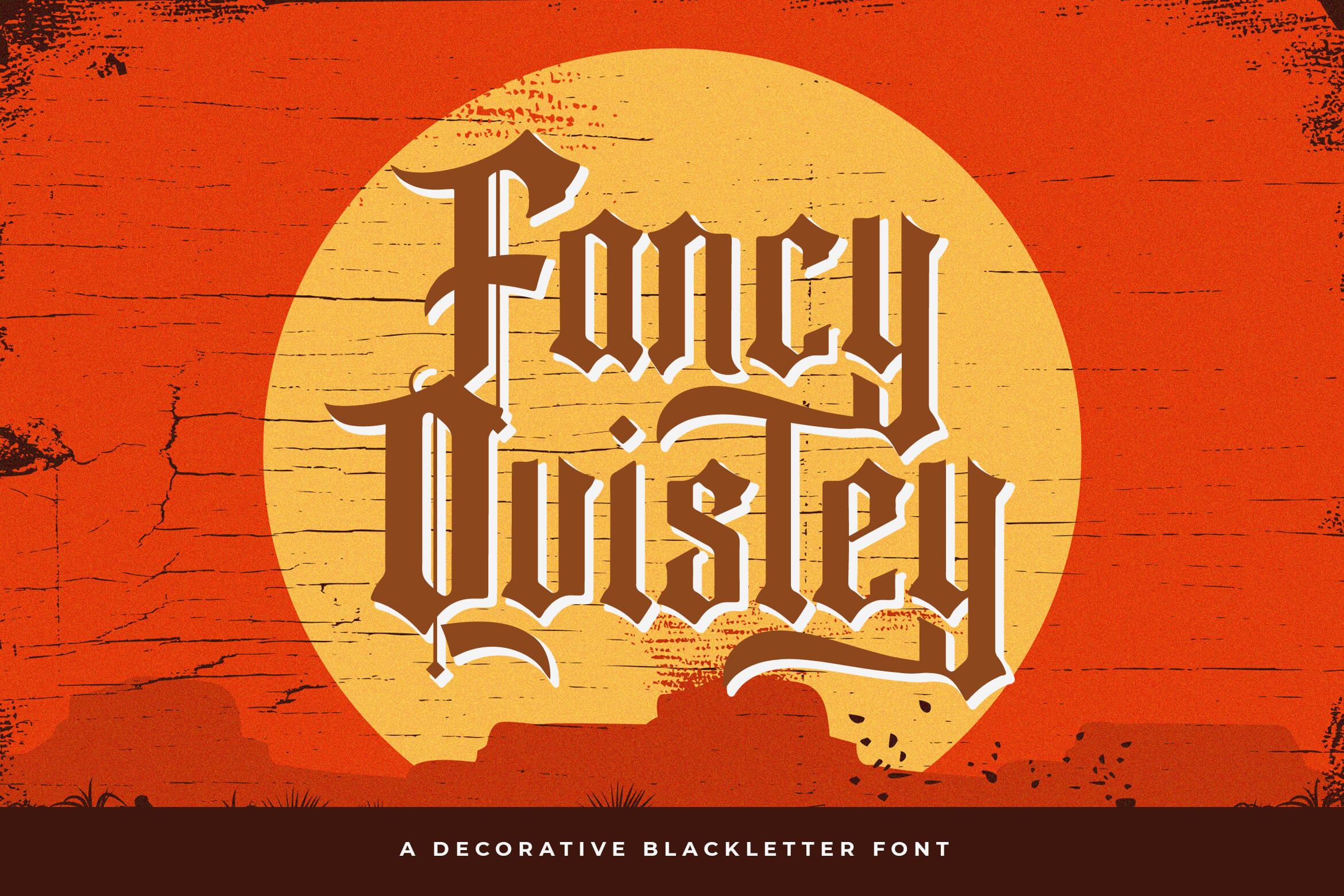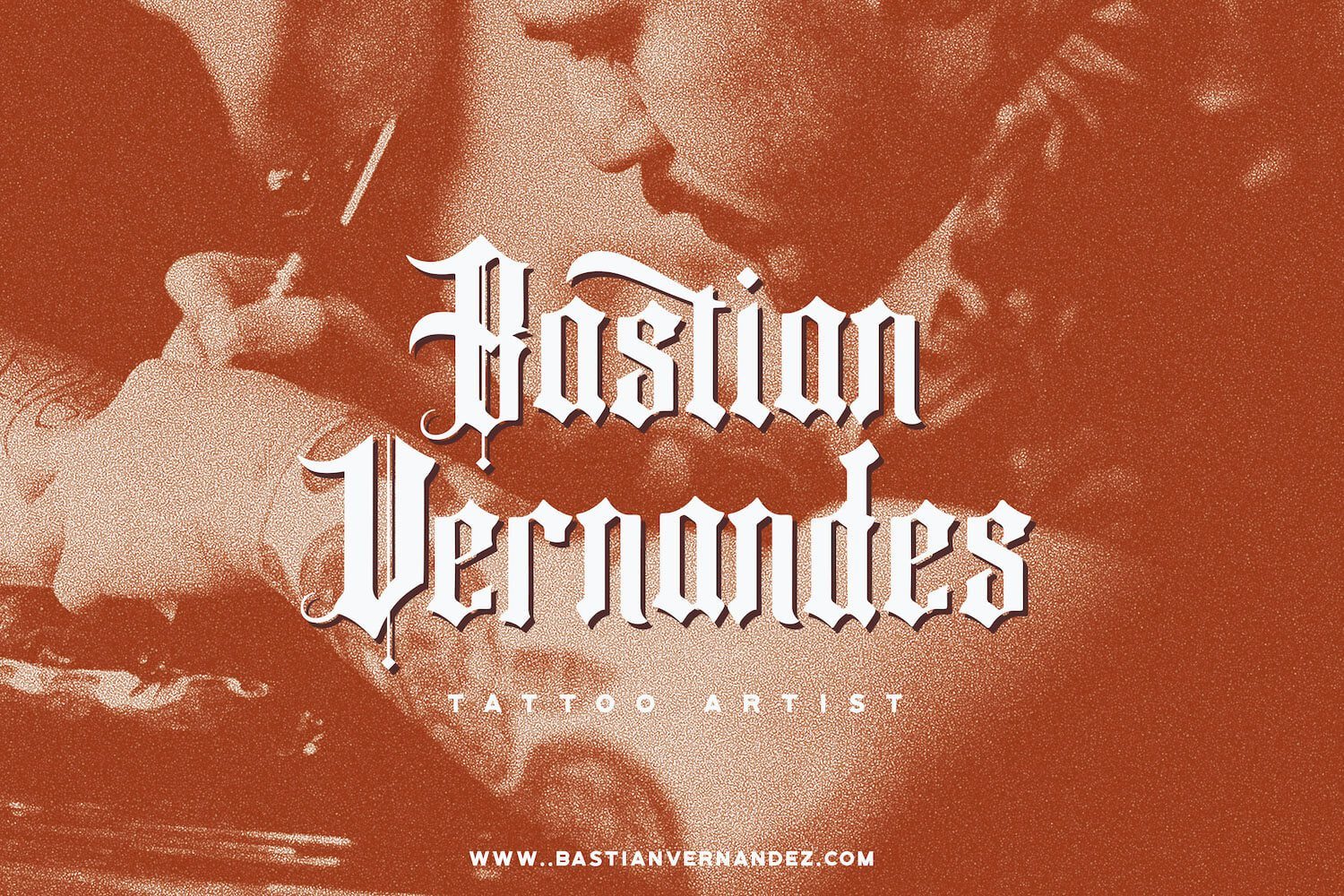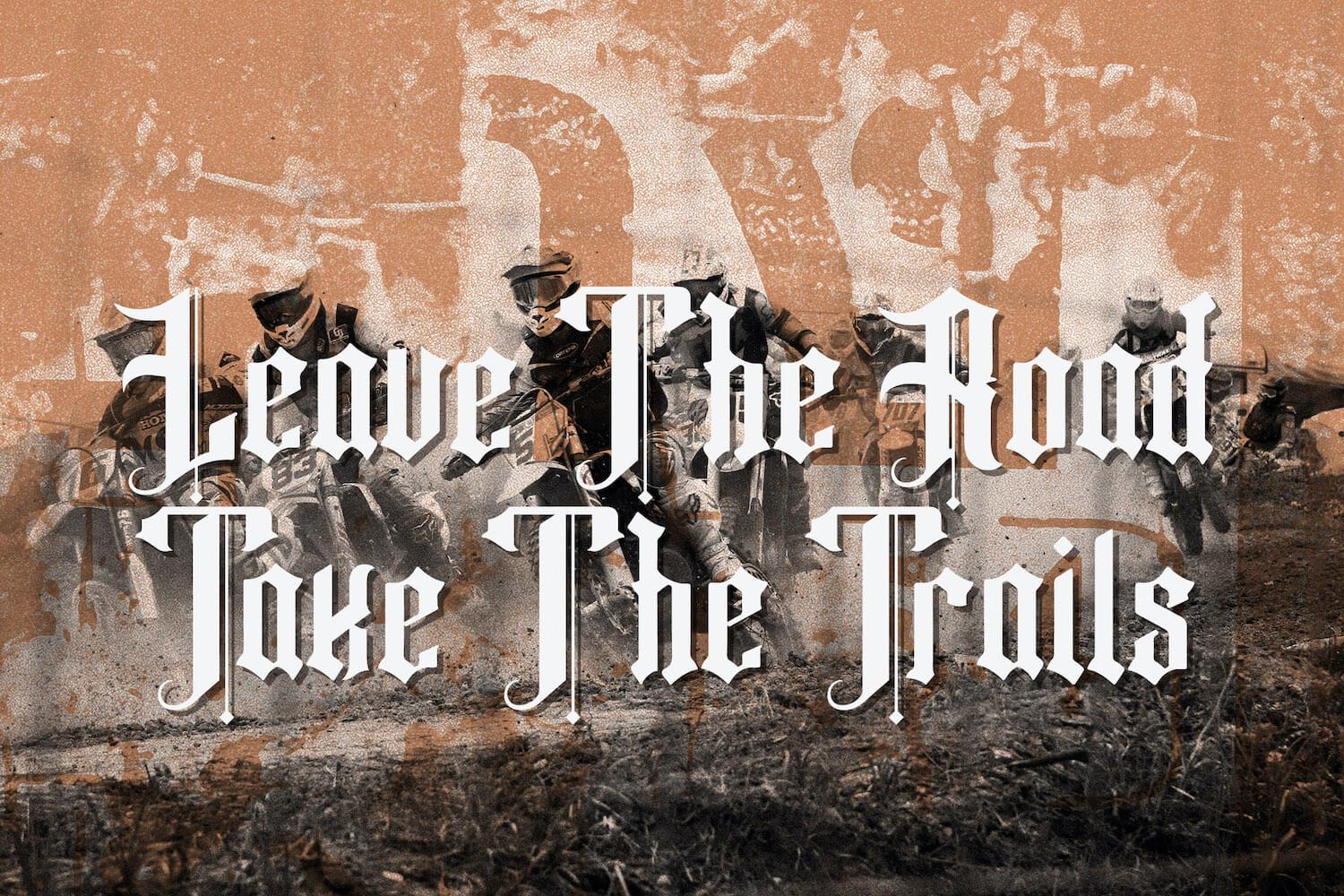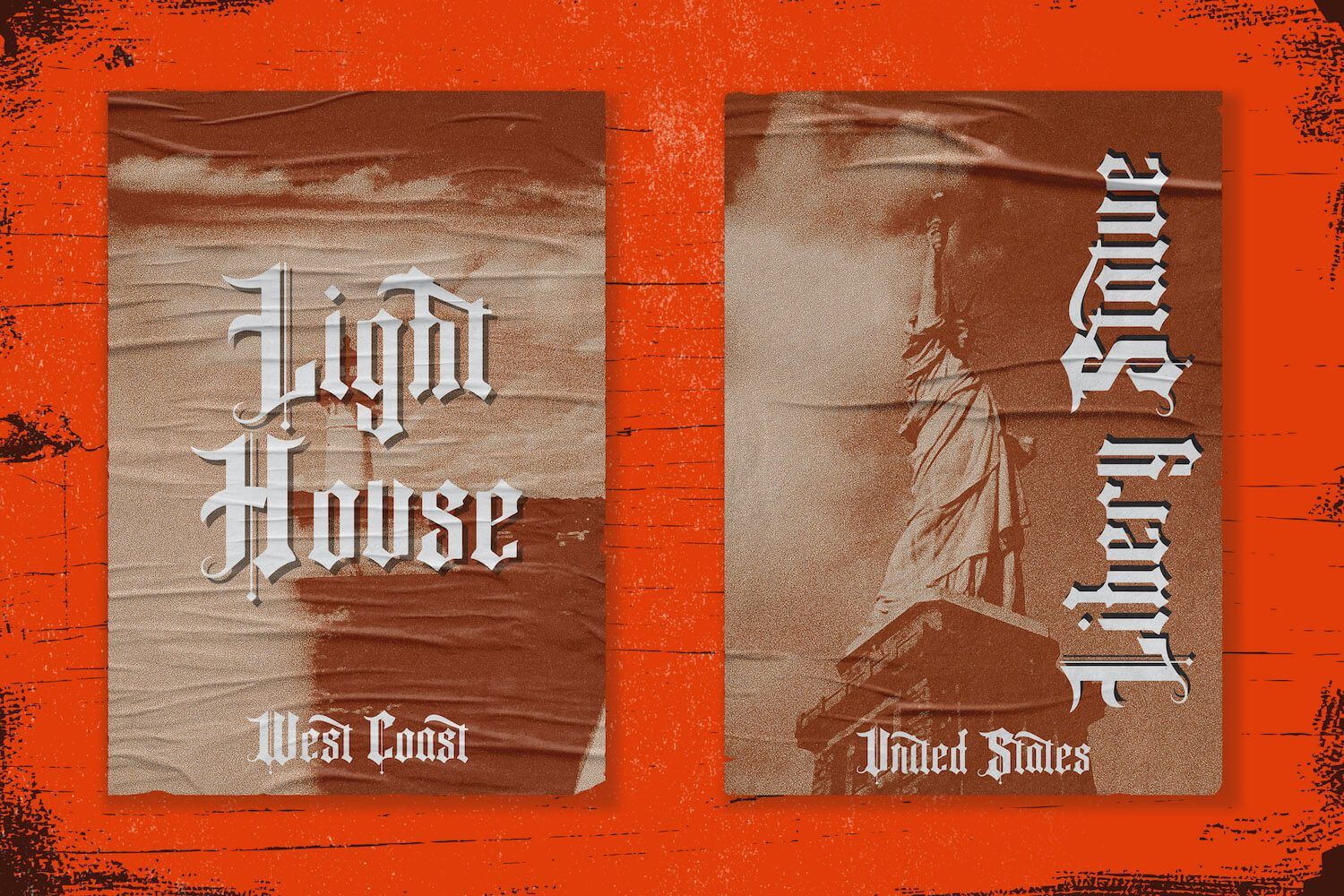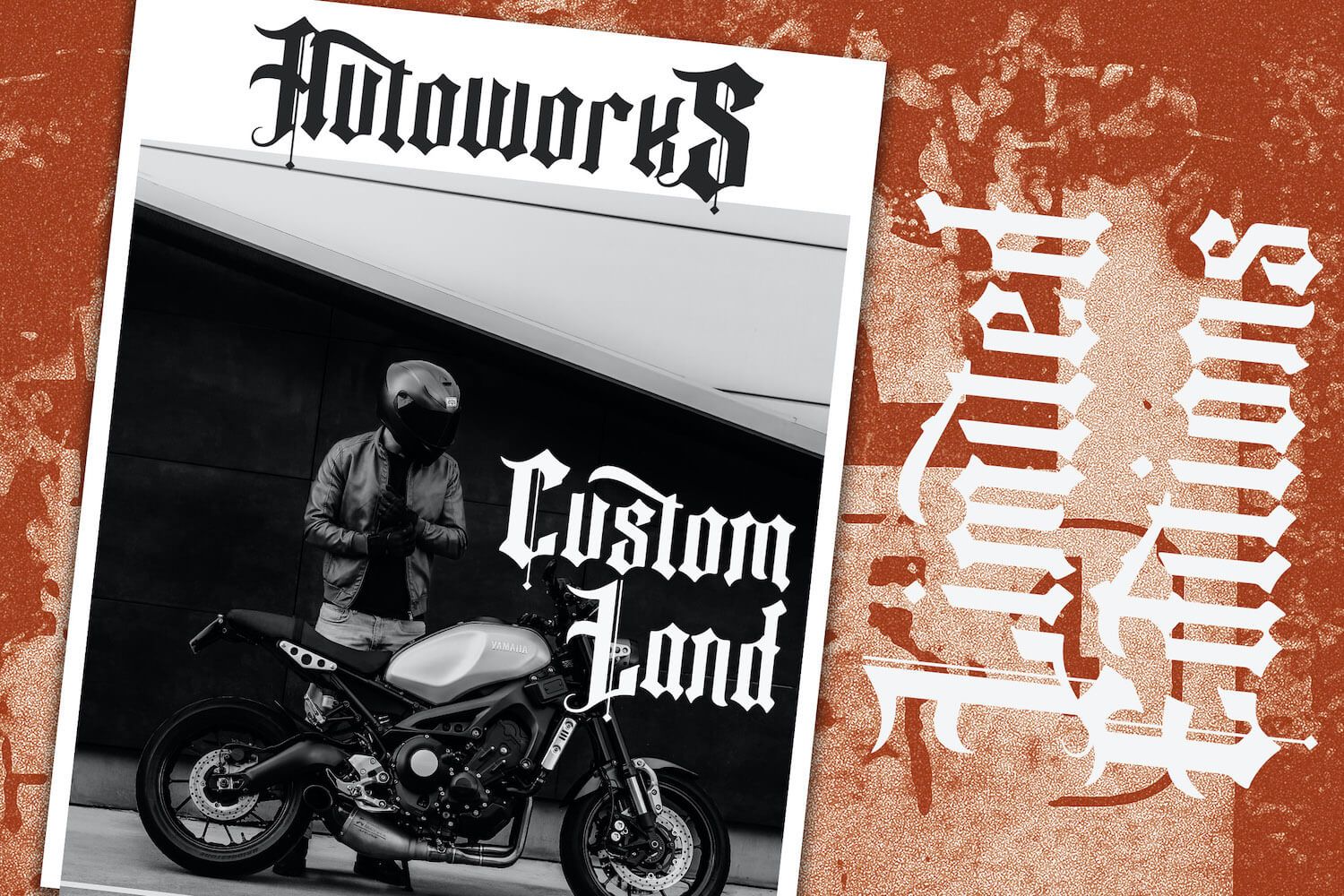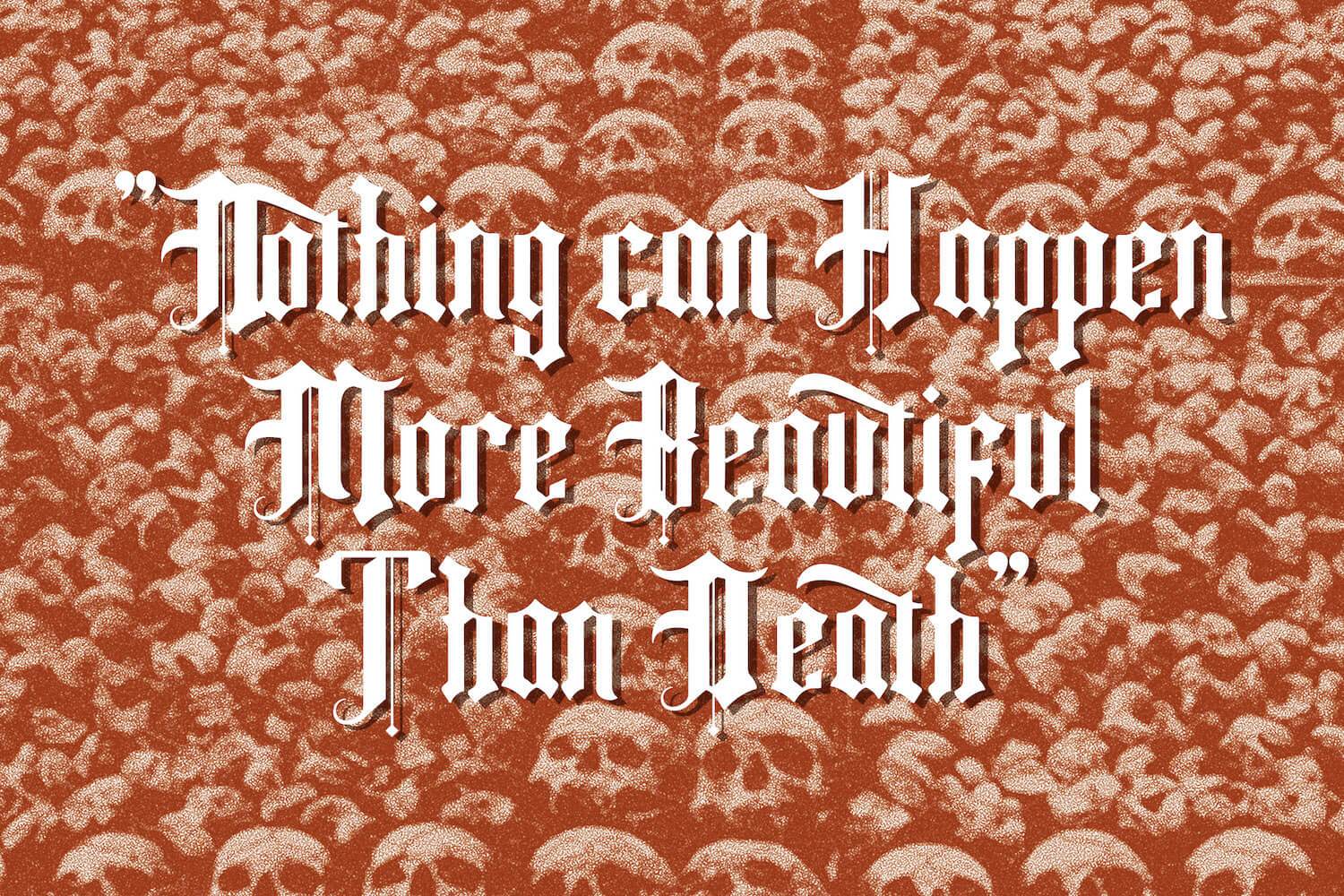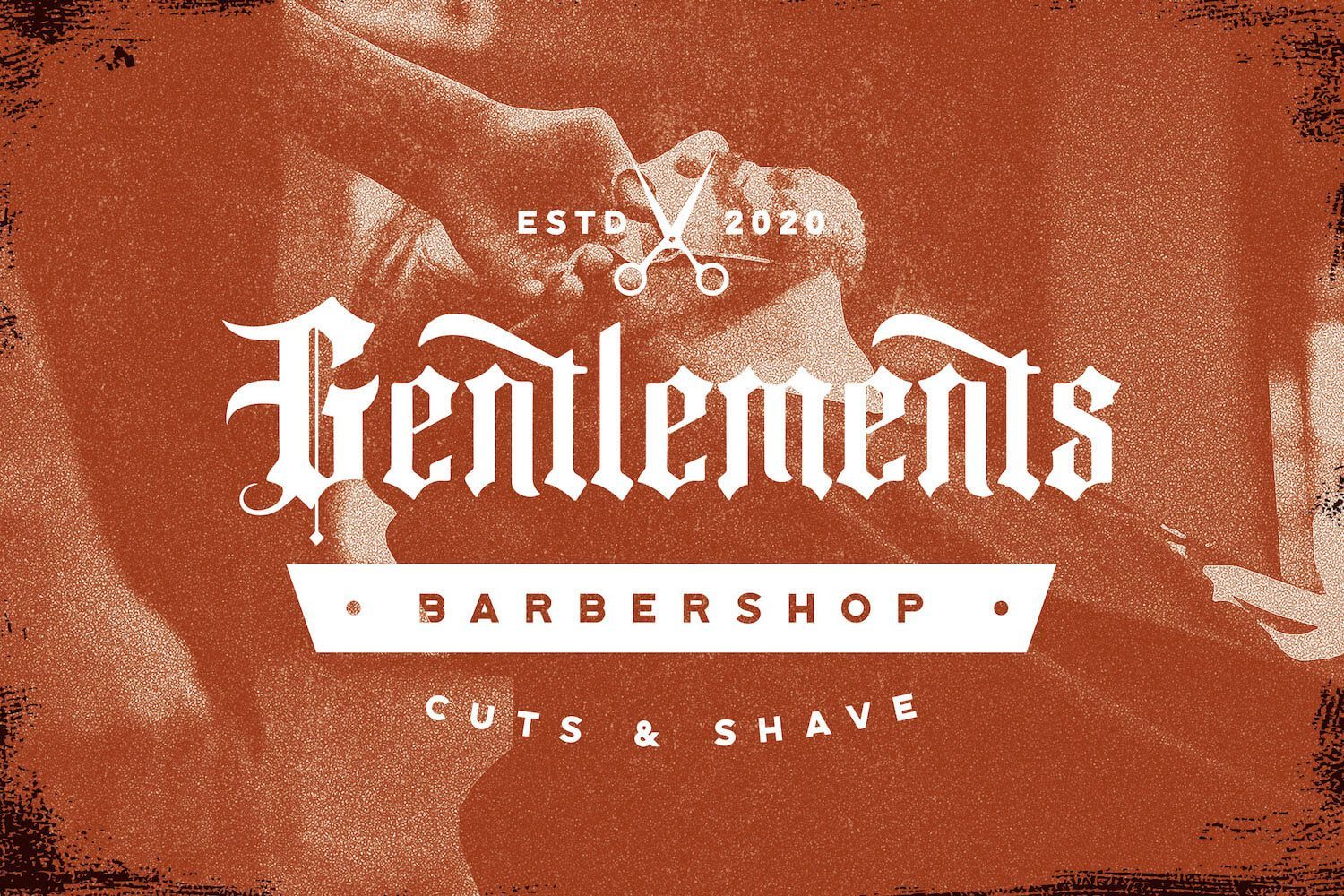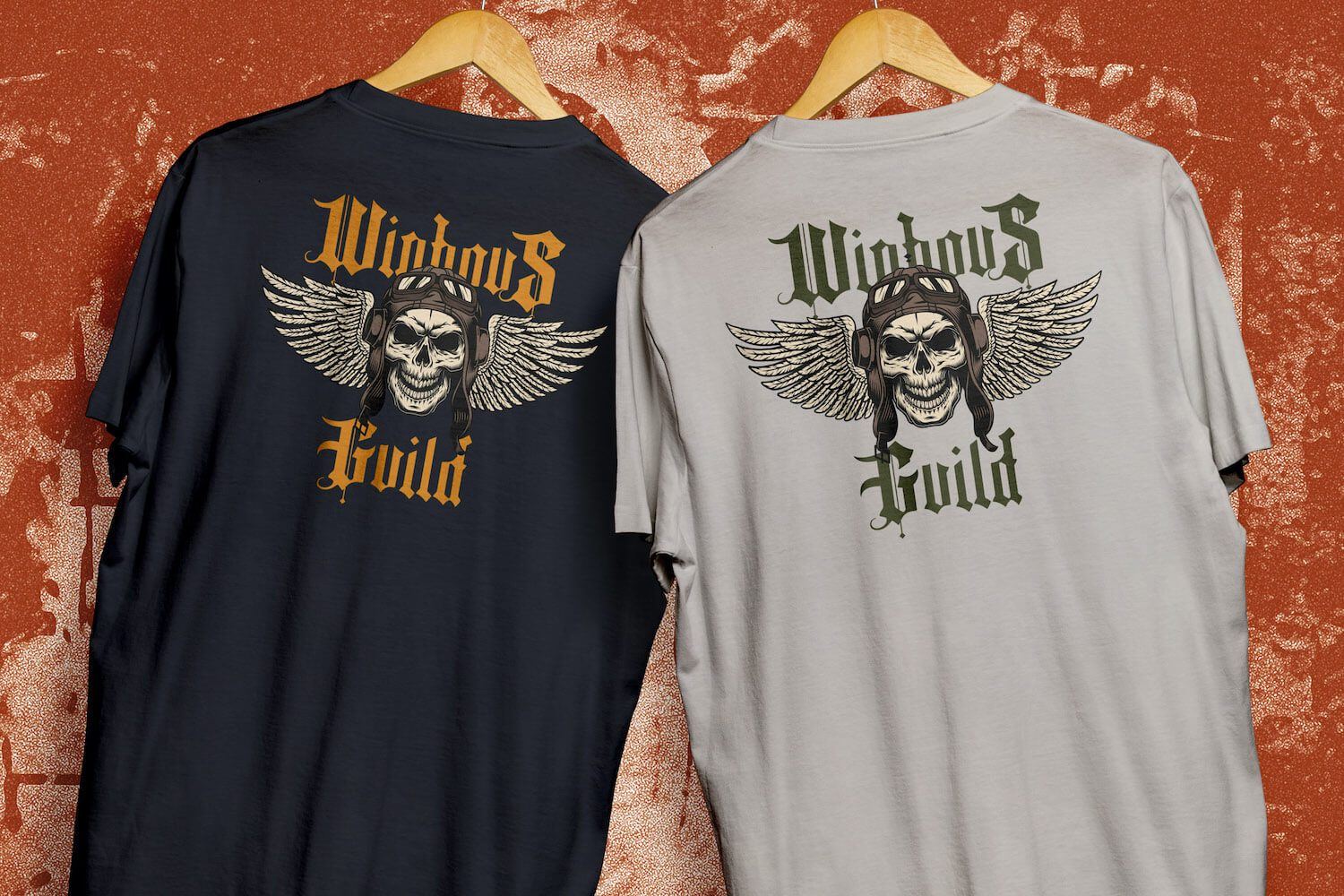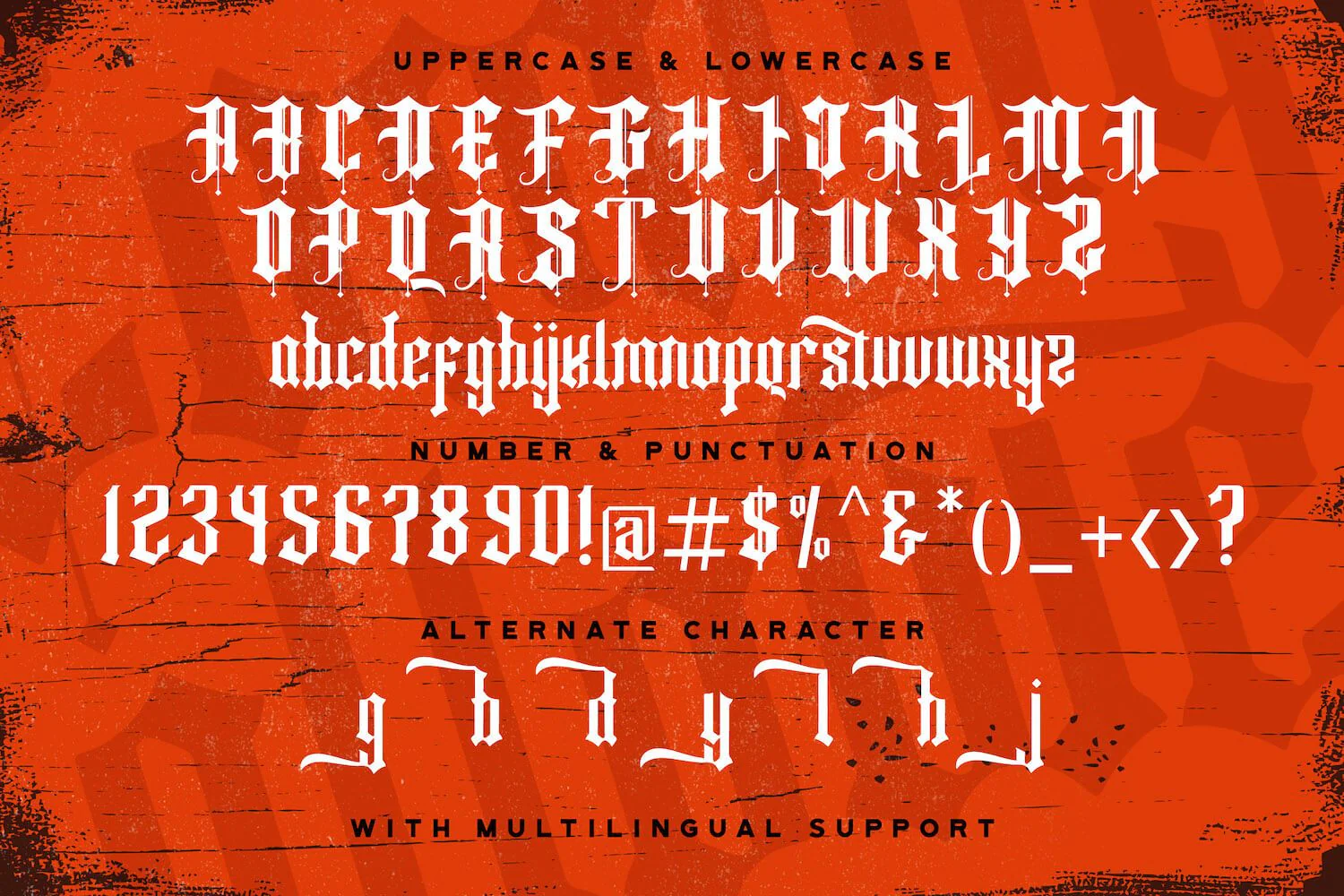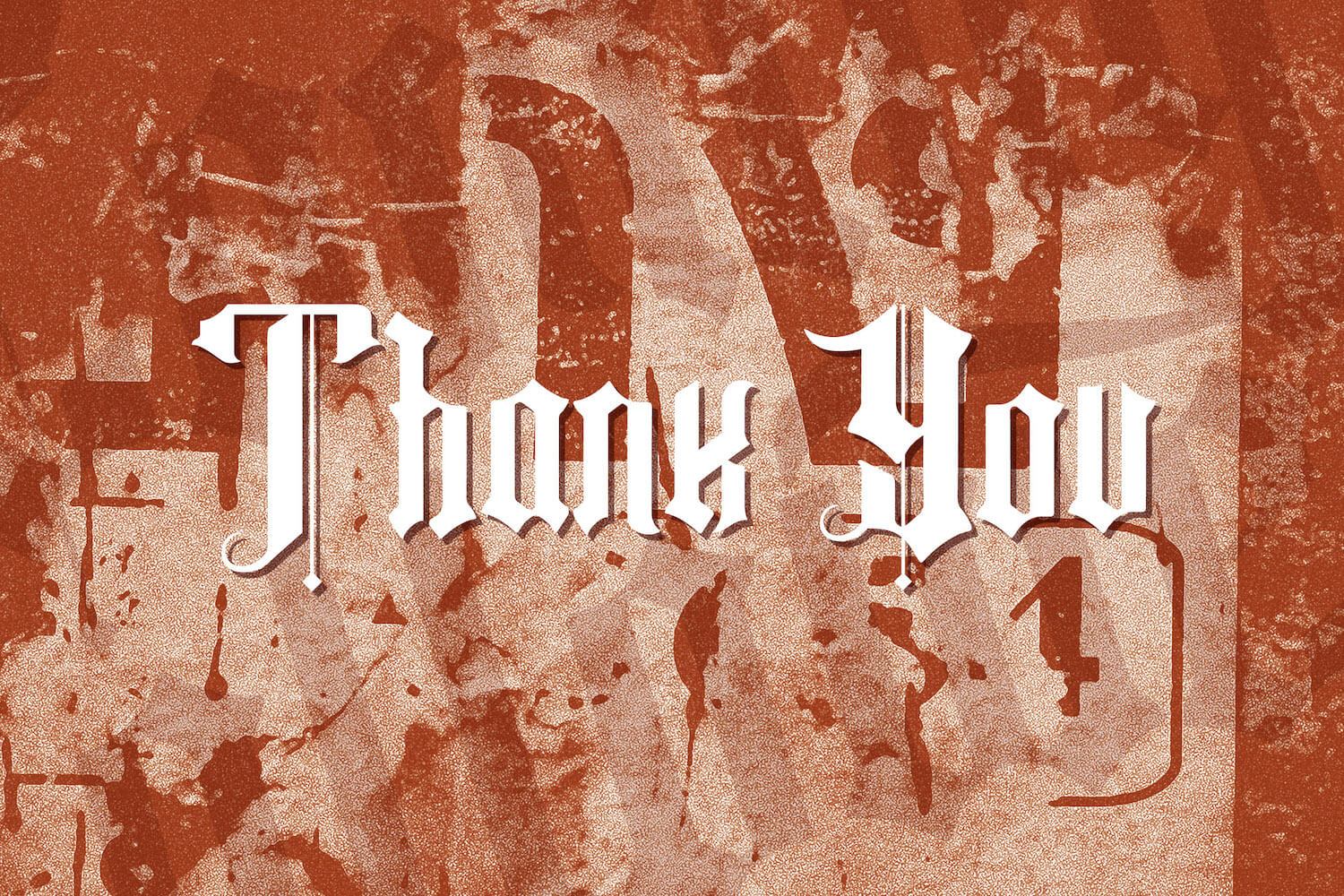
Fancy Quisley - Blackletter Font
Introducing Fancy Quisley - Blackletter Font
Fancy Quisley is an incredibly authentic and daring blackletter font. Add this font to your favorite creative ideas and notice how it makes them stand out!
Introducing Fancy Quisley - Blackletter Font
Fancy Quisley is an incredibly authentic and daring blackletter font. Add this font to your favorite creative ideas and notice how it makes them stand out!